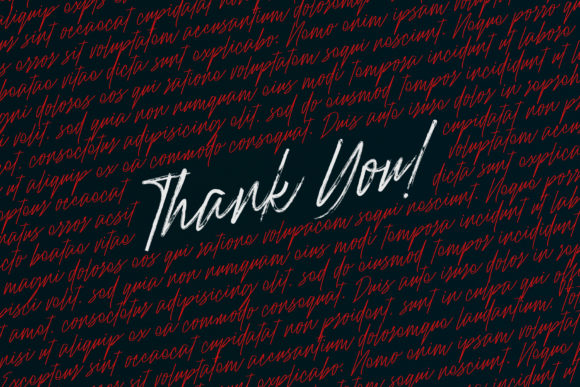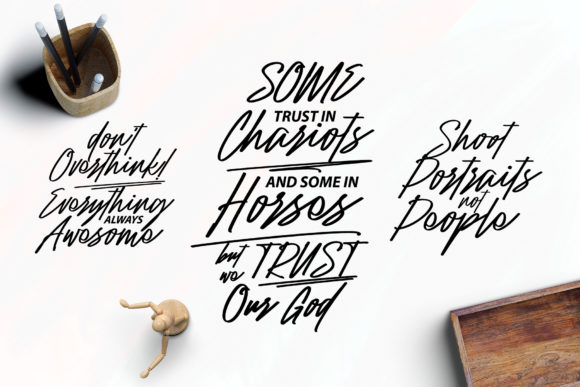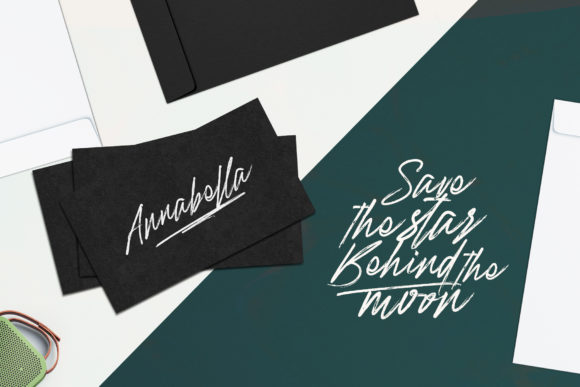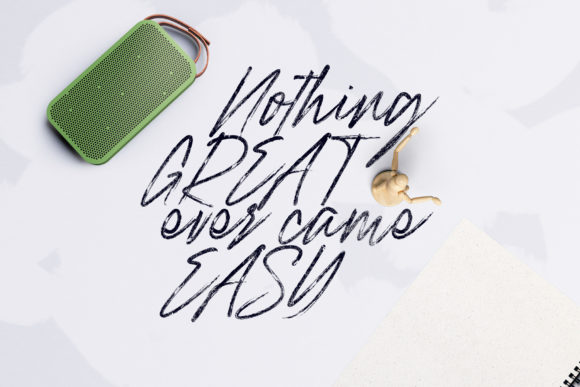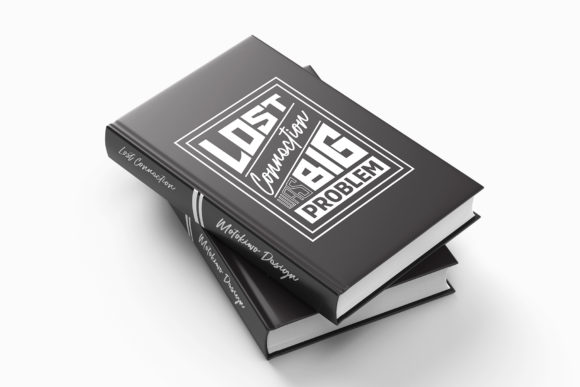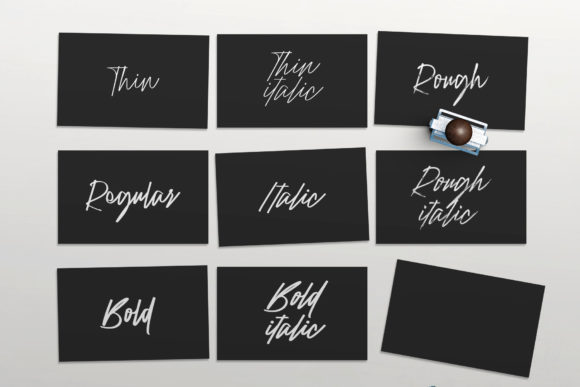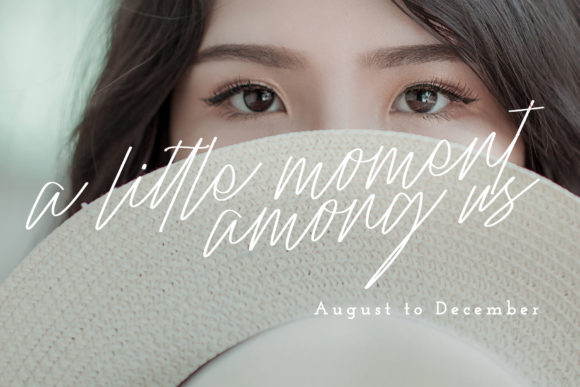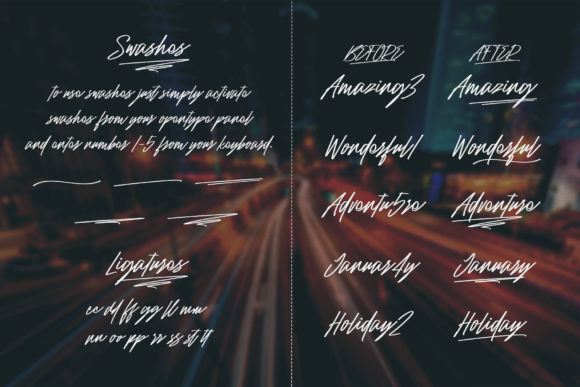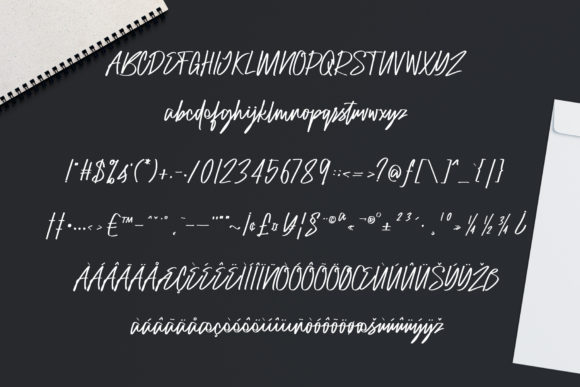
Raidden Family Font
About Raidden Family Font
Raidden is a unique and light handwritten font family with a contemporary feel. Use it for any design project that requires a modern, authentic update.